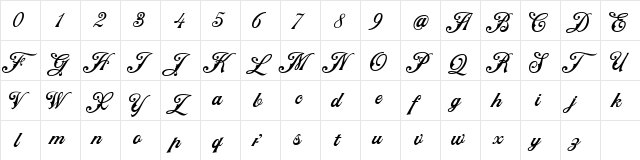
NS Mudolf Script Regular
| Foundry | Novi Souldado |
| Designer | Novi Ananda |
Design Context for NS Mudolf Script Typeface
NS Mudolf Script brings a calligraphic fluidity to the page — its connecting strokes and expressive curves give it an unmistakably human quality.
Font Pairing: Combine NS Mudolf Script with a simple geometric sans for maximum contrast — the tension between flowing curves and clean structure is a classic typographic pairing.
Pro Tip: Pair NS Mudolf Script with a clean sans-serif for supporting text. The contrast between fluid script and geometric structure creates an elegant typographic hierarchy.